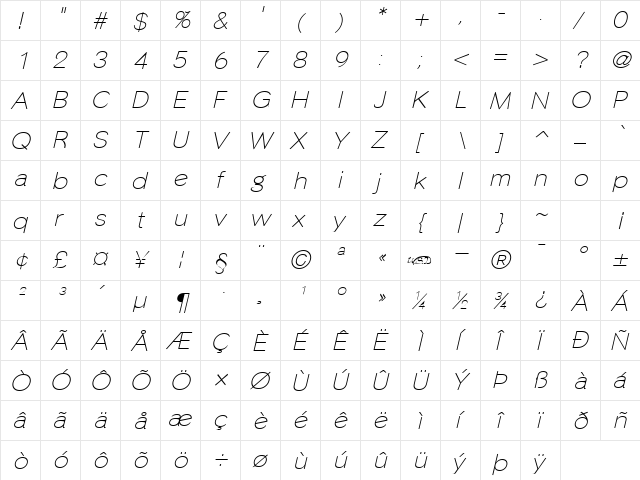
Phinster Fine Italic Font Preview
Phinster Fine Italic
Phinster Fine Italic Font Details
Design Context for Phinster Fine Typeface
Phinster Fine offers clean, dependable letterforms without strong stylistic allegiance, making it a practical choice for designers who need flexibility. The dynamic lean of this cut emphasises speed and emphasis in any layout.